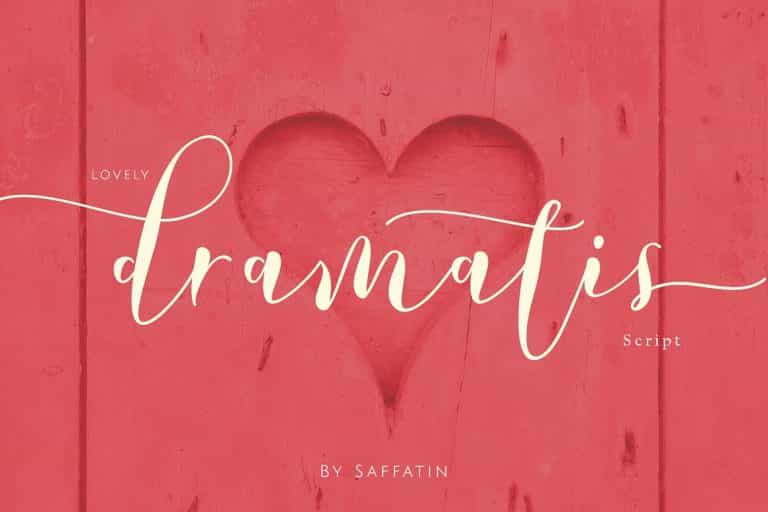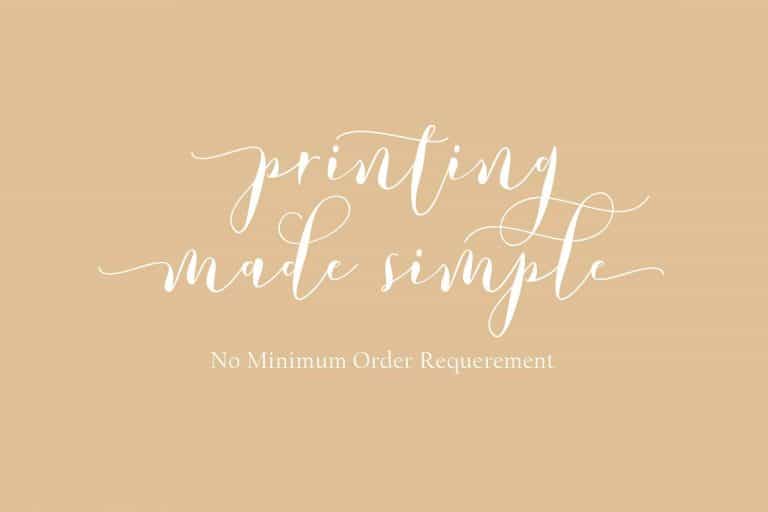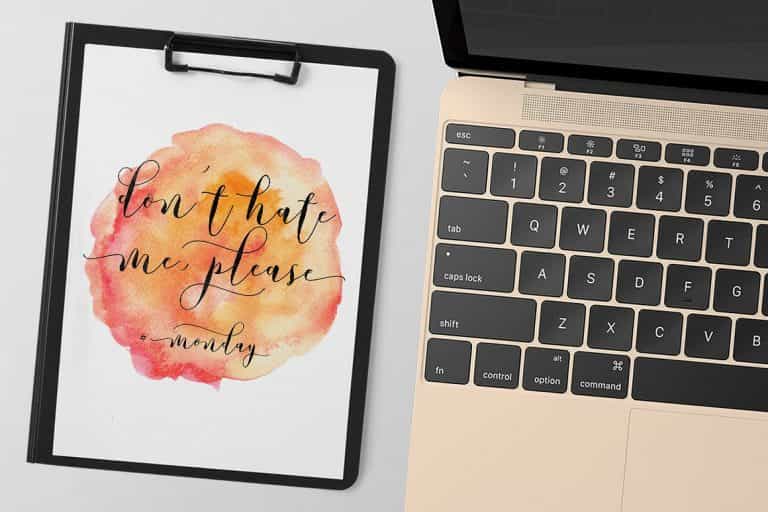
LOVELY DRAMATIS is a modern script typeface, this font is very easy to use and really playful. You can explore to create a combination that would have been nice. Come with modern style, handmade and clean. LOVELY DRAMATIS, including swashes, ligatures, Alternate, and International support for most Western Languages is included. LOVELY DRAMATIS come with 484 glyphs.